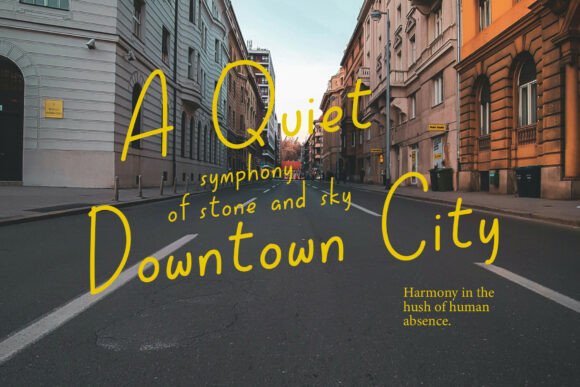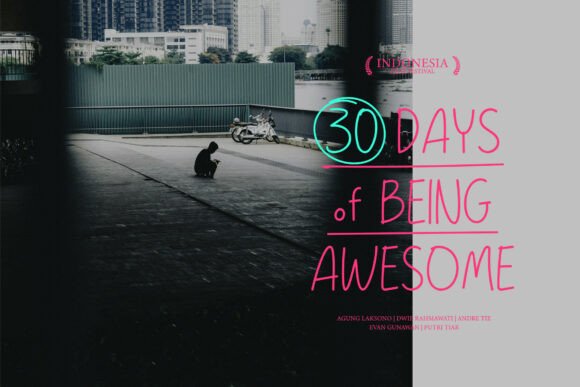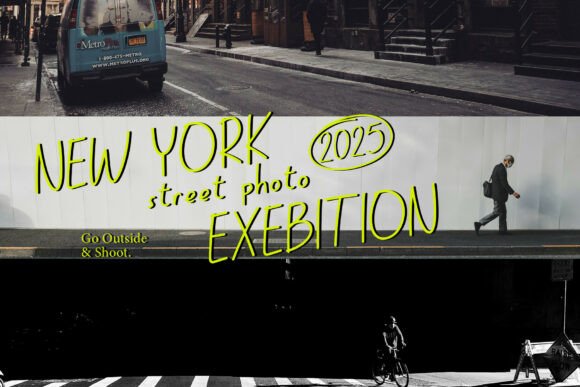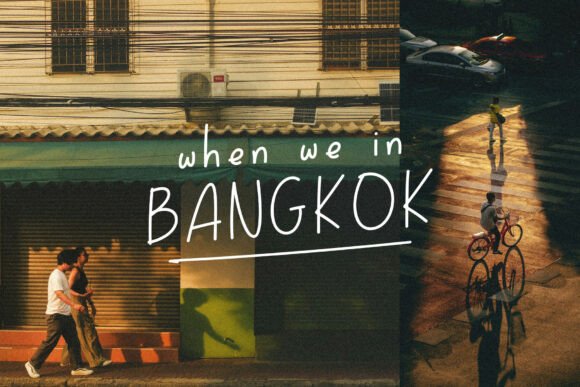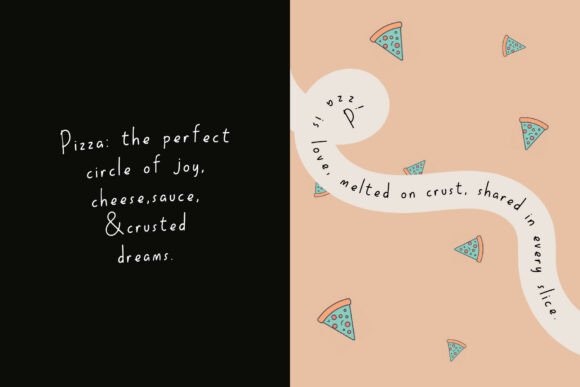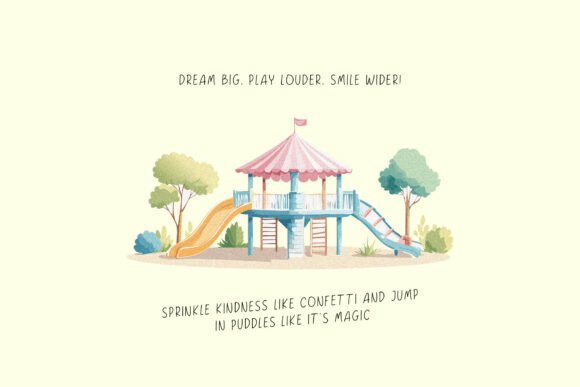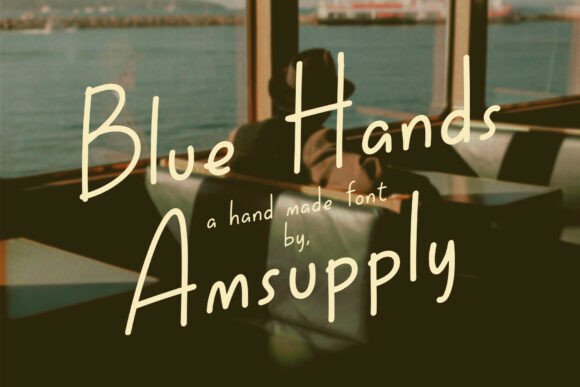
Introducing Blue Hands Font: A Handcrafted Handwritten Font with a Personal Touch
Are you looking for a font that adds a touch of warmth, personality, and nostalgia to your designs? Look no further than Blue Hands, a beautiful handcrafted handwritten font that is sure to capture the hearts of designers and crafters alike. With its tall, slightly irregular letterforms, Blue Hands creates an organic and natural feel that resembles authentic handwriting, making it perfect for a wide range of creative projects.
The Characteristics of Blue Hands Font
Blue Hands is a unique and expressive font that boasts a range of characteristics that set it apart from other fonts. Its tall letterforms give it a distinctive and elegant feel, while its slightly irregular shapes add a touch of whimsy and personality. The font’s organic and natural feel makes it perfect for designs that require a human touch, such as travel-themed designs, visual journals, and narrative illustrations.
Ideal Uses for Blue Hands Font
So, what can you use Blue Hands font for? The possibilities are endless! Here are some ideas to get you started:
- Travel-themed designs: Whether you’re creating a brochure, poster, or website for a travel company, Blue Hands font is the perfect choice. Its warm and inviting feel will transport your audience to far-flung destinations and make them feel like they’re part of an exciting adventure.
- Visual journals: Add a personal touch to your visual journals with Blue Hands font. Its expressive and legible style makes it perfect for writing captions, notes, and stories that bring your journal to life.
- Narrative illustrations: Bring your illustrations to life with Blue Hands font. Its handcrafted feel adds a touch of whimsy and personality to your artwork, making it perfect for children’s books, graphic novels, and other narrative illustrations.
- Poster titles and creative quotes: Make a statement with Blue Hands font. Its bold and expressive style is perfect for poster titles, creative quotes, and social media captions that require a touch of personality and flair.
- Branding projects: Add a human touch to your branding projects with Blue Hands font. Its approachable and artistic feel makes it perfect for logos, taglines, and other branding elements that require a personal touch.
Why Choose Blue Hands Font?
So, why choose Blue Hands font over other fonts? Here are just a few reasons:
- Unique and expressive: Blue Hands font is a one-of-a-kind font that adds a touch of personality and whimsy to your designs.
- Handcrafted feel: Its handcrafted feel makes it perfect for designs that require a human touch, such as travel-themed designs, visual journals, and narrative illustrations.
- Legible and readable: Despite its expressive style, Blue Hands font is highly legible and readable, making it perfect for body text, captions, and other written content.
- Versatile: Blue Hands font is a versatile font that can be used for a wide range of creative projects, from posters and flyers to social media graphics and branding projects.
Tips for Using Blue Hands Font
Here are a few tips for using Blue Hands font:
- Use it with a light touch: Blue Hands font is a bold and expressive font, so use it with a light touch. Pair it with a simple background or use it as a accent font to add a touch of personality to your design.
- Experiment with colors: Blue Hands font looks great in a range of colors, from bright and bold to soft and pastel. Experiment with different colors to find the perfect look for your design.
- Mix it with other fonts: Blue Hands font pairs well with other fonts, such as serif and sans-serif fonts. Experiment with different font combinations to create a unique and interesting look.
| Author | AMSUPPLY |
In conclusion, Blue Hands font is a beautiful handcrafted handwritten font that adds a touch of warmth, personality, and nostalgia to your designs. Its unique and expressive style makes it perfect for a wide range of creative projects, from travel-themed designs and visual journals to narrative illustrations and branding projects. With its legible and readable style, Blue Hands font is a versatile font that can be used for body text, captions, and other written content. So why not give Blue Hands font a try and see how it can add a personal touch to your designs?